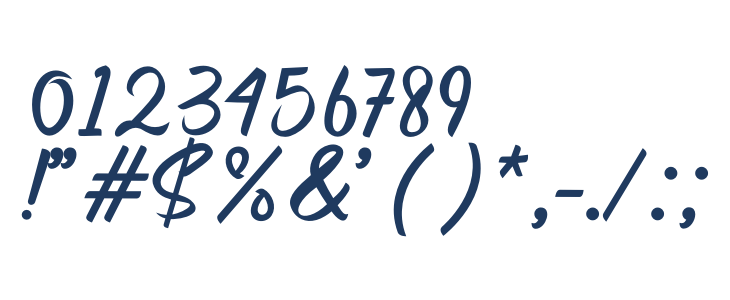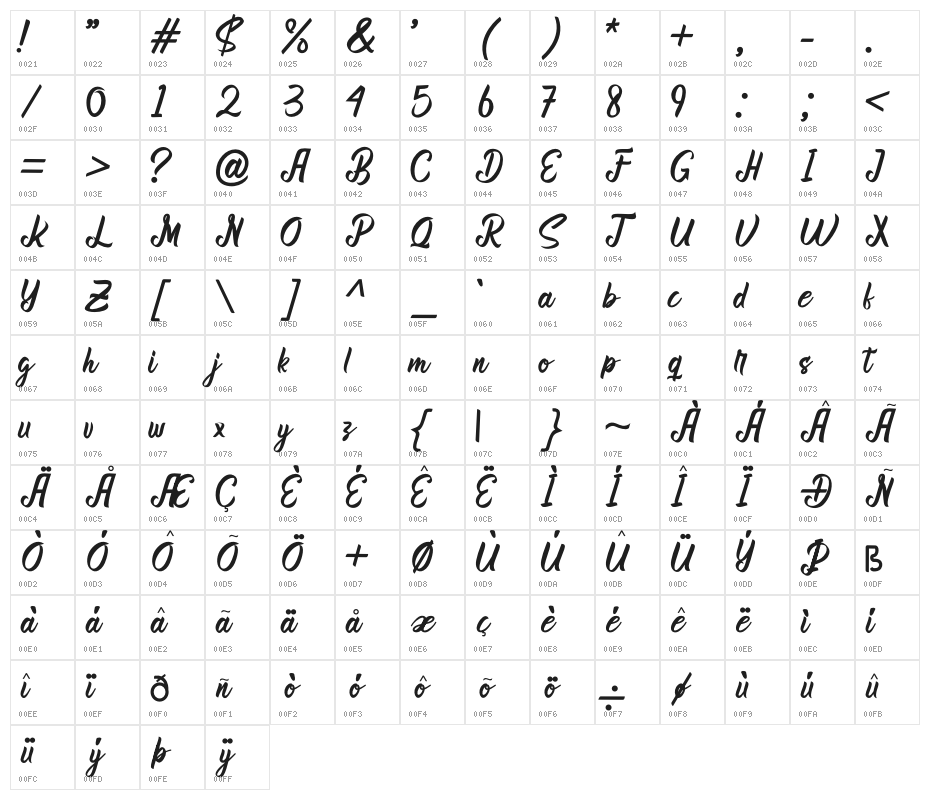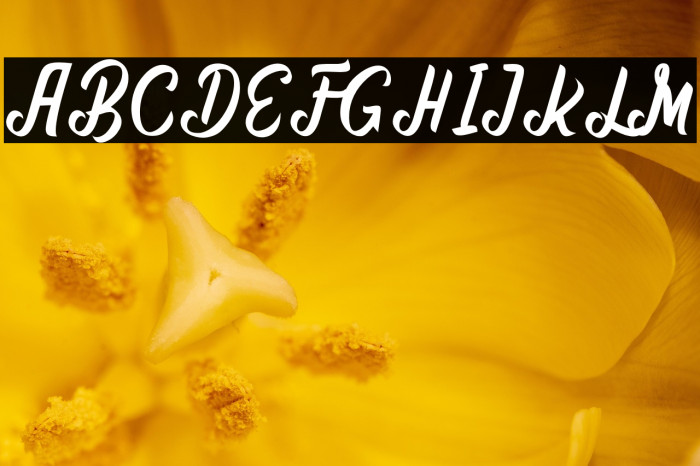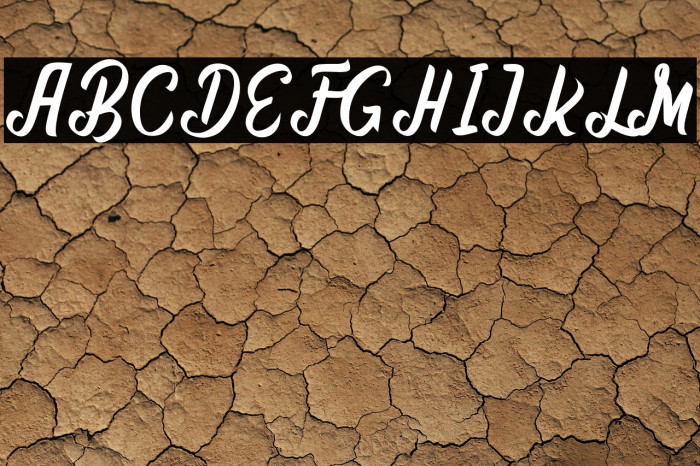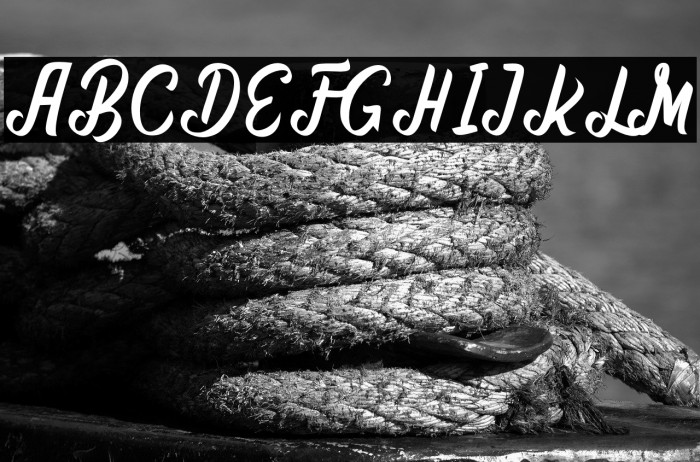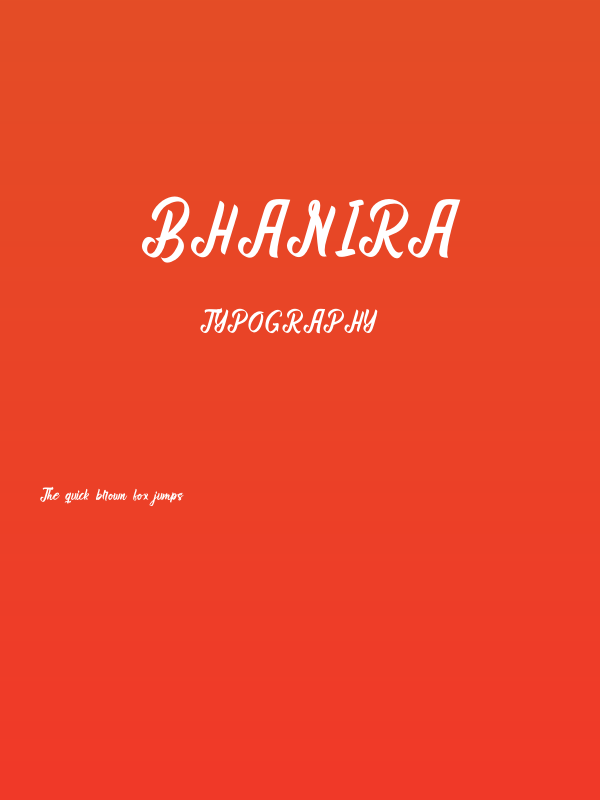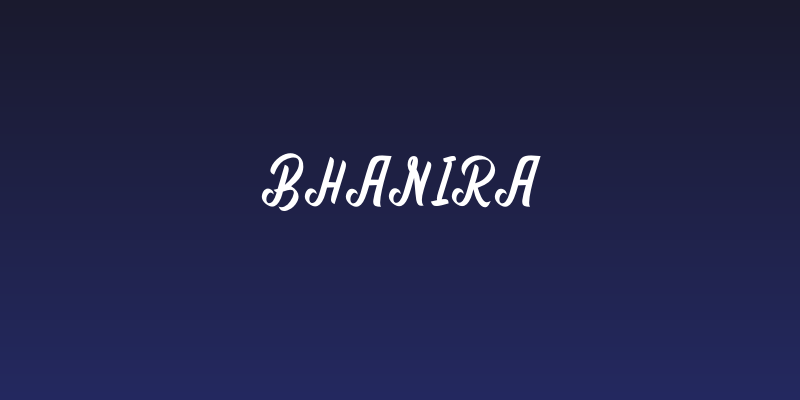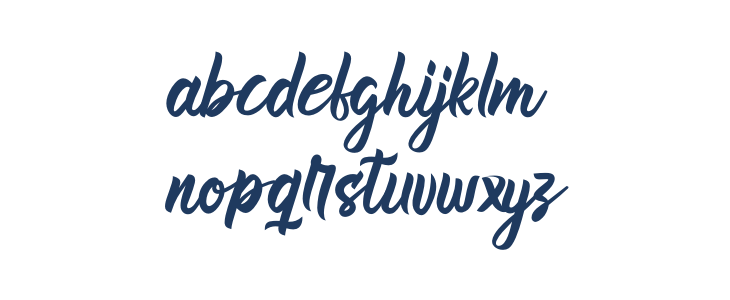
Bhanira Font
Bhanira Description
This font features a dynamic and flowing script style, characterized by its elegant curves and smooth connections between letters. The uppercase letters are bold and expressive, while the lowercase letters maintain a consistent rhythm and fluidity. The numerals are well-integrated into the overall design, maintaining the same cursive style. Special characters are thoughtfully crafted to match the aesthetic, making this font versatile for various uses. The overall appearance is both sophisticated and approachable, making it suitable for a wide range of design projects.
| Overall Style | Elegant and Sophisticated |
| Proposed Projects | Ideal for wedding invitations, branding, greeting cards, and elegant packaging designs. |